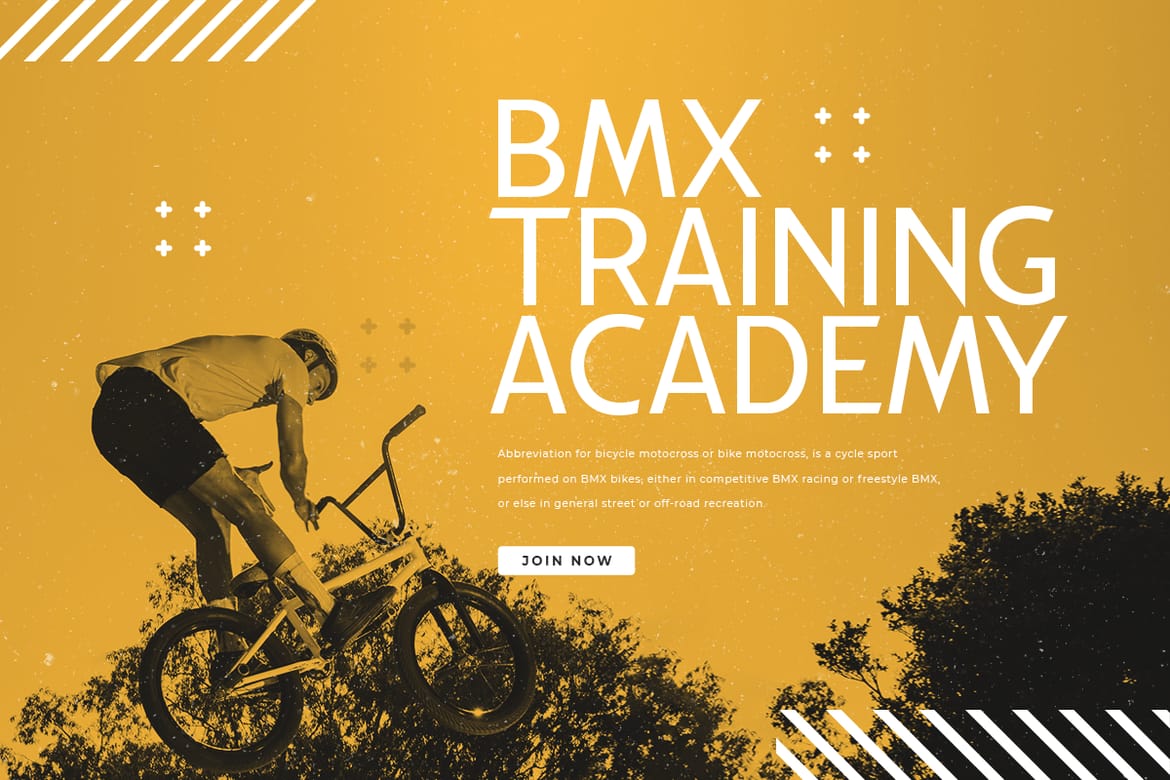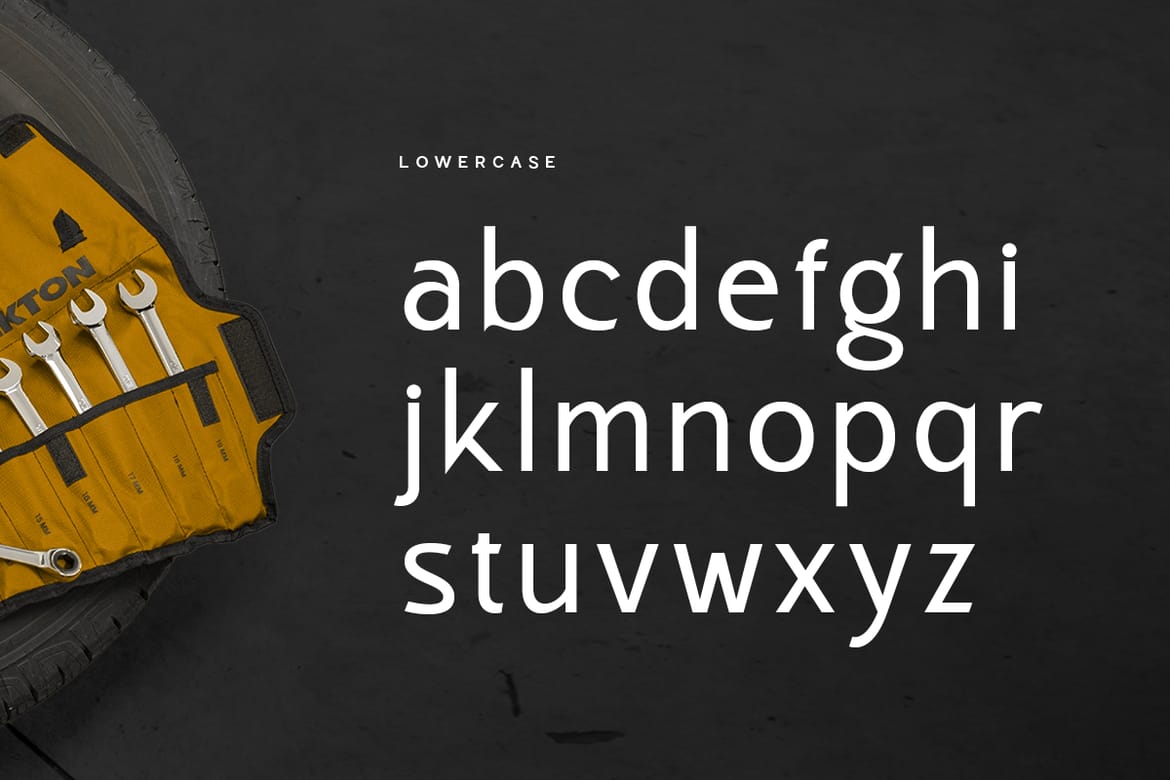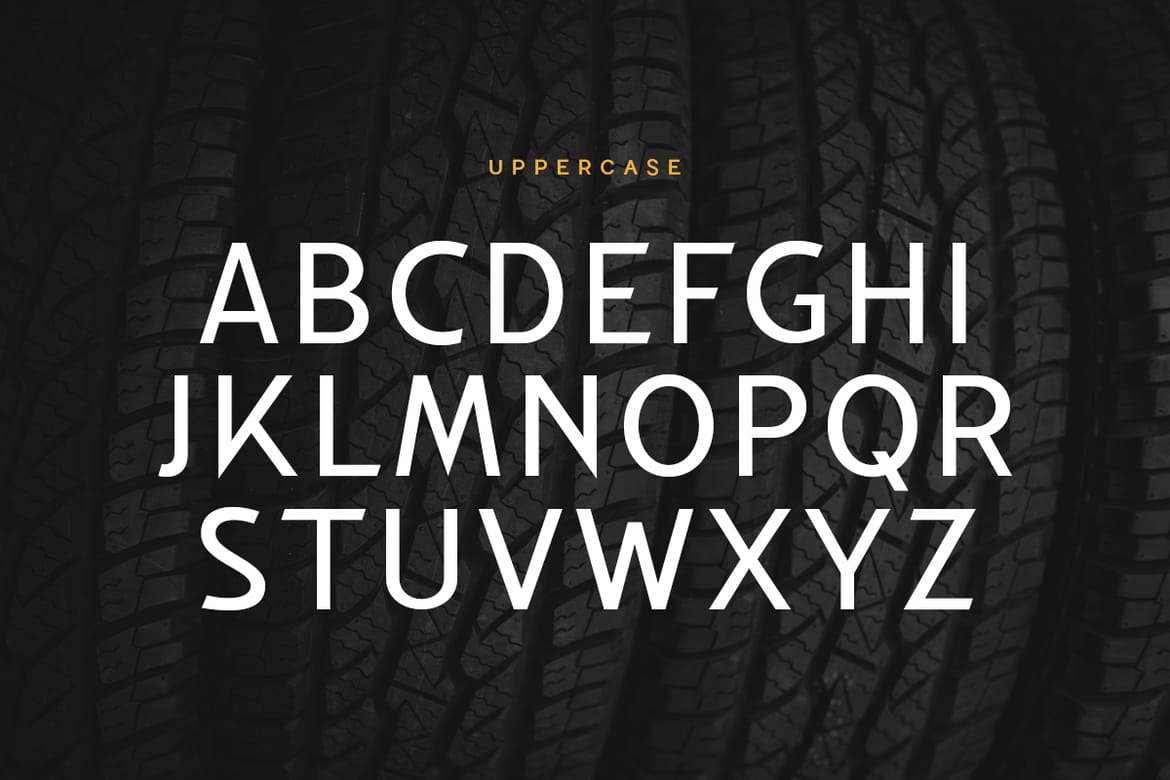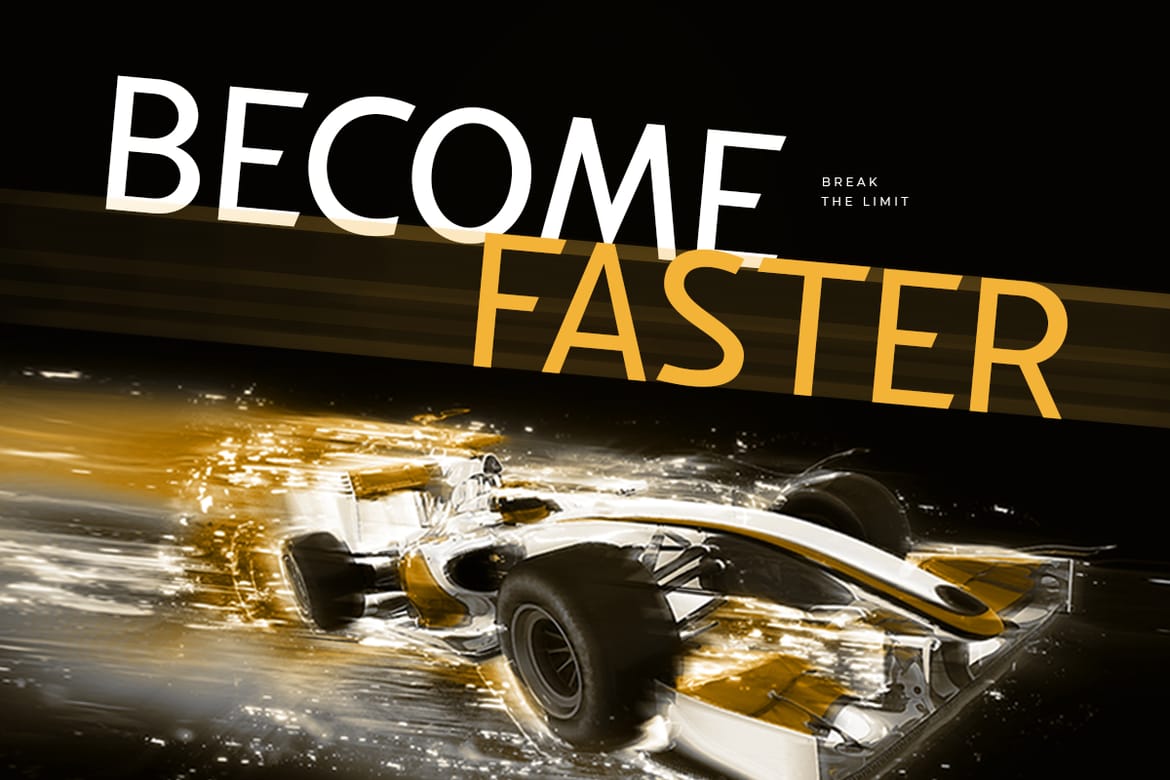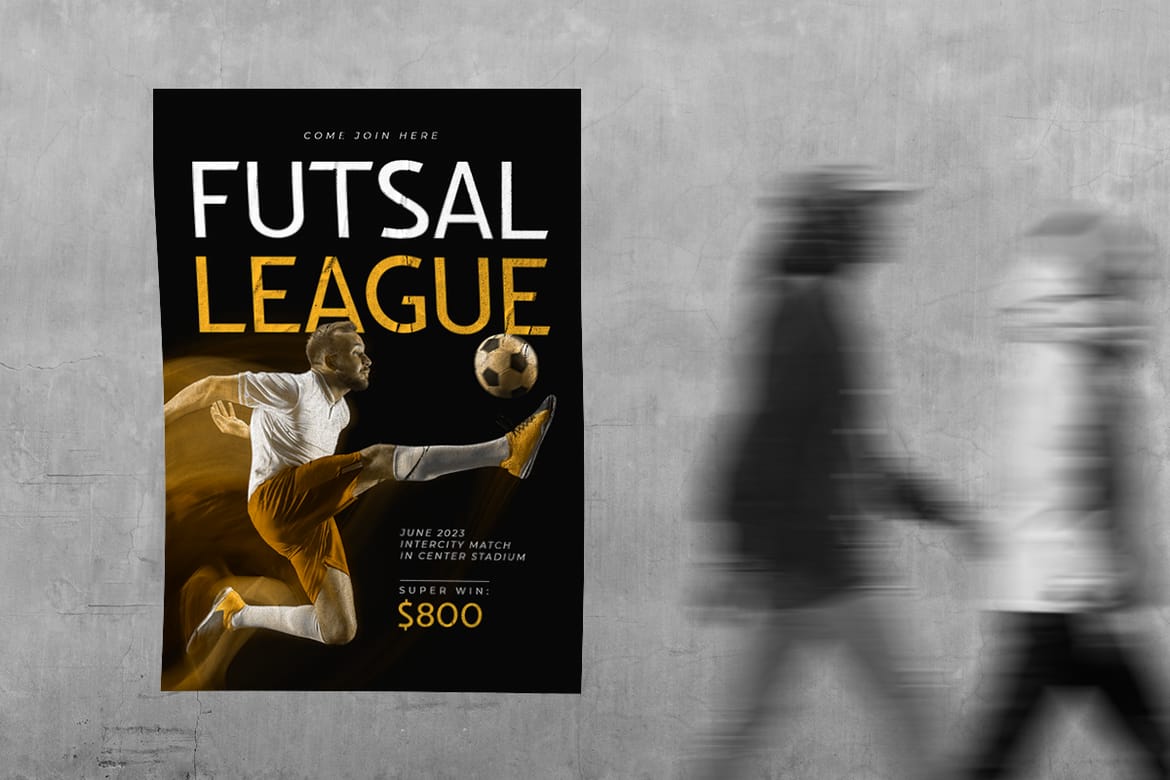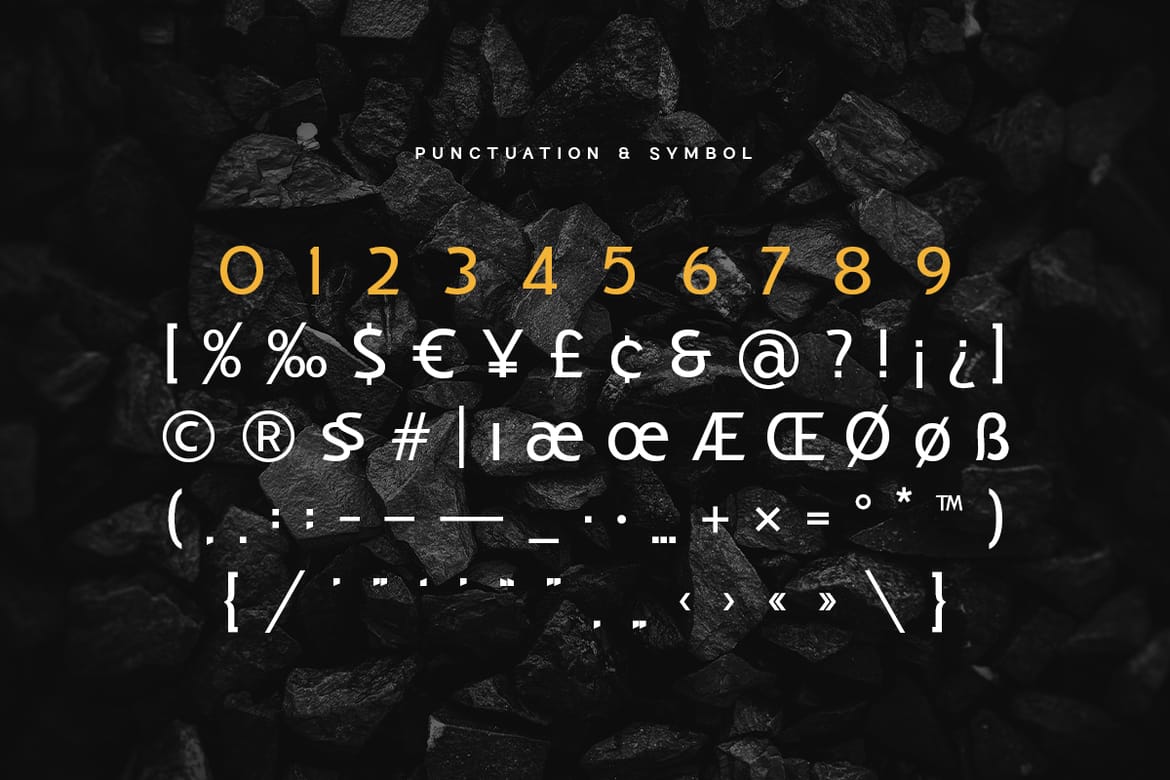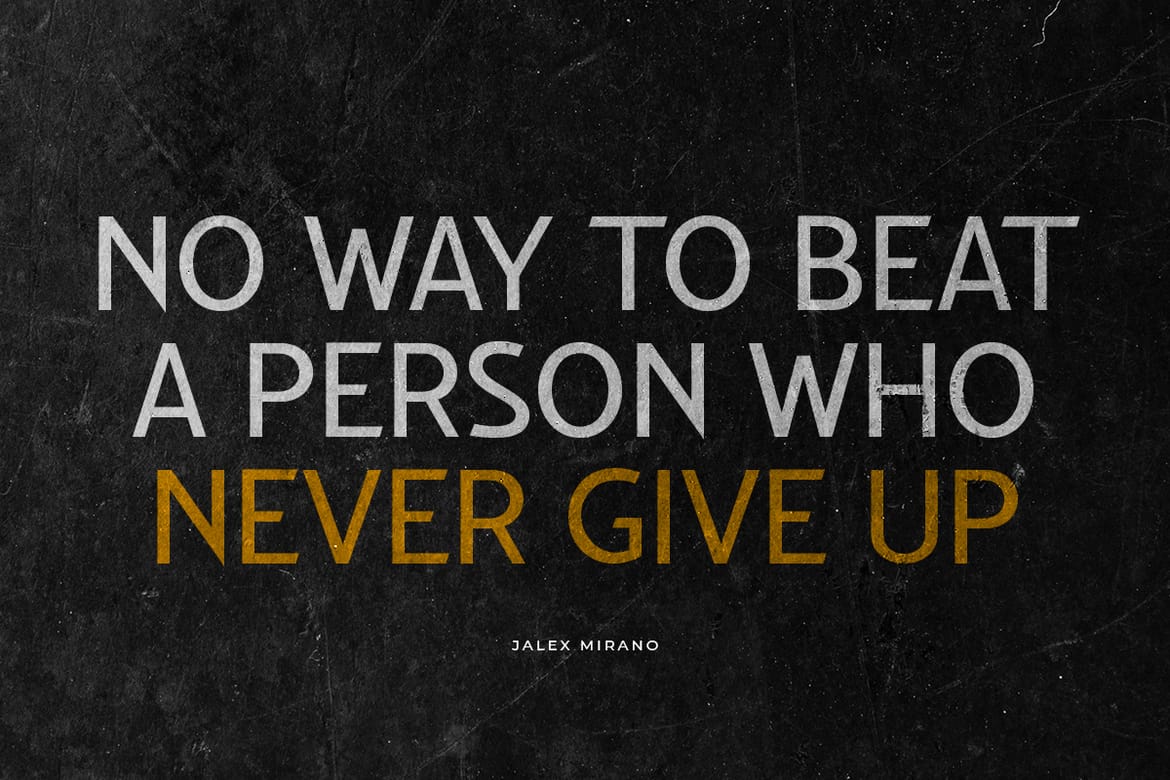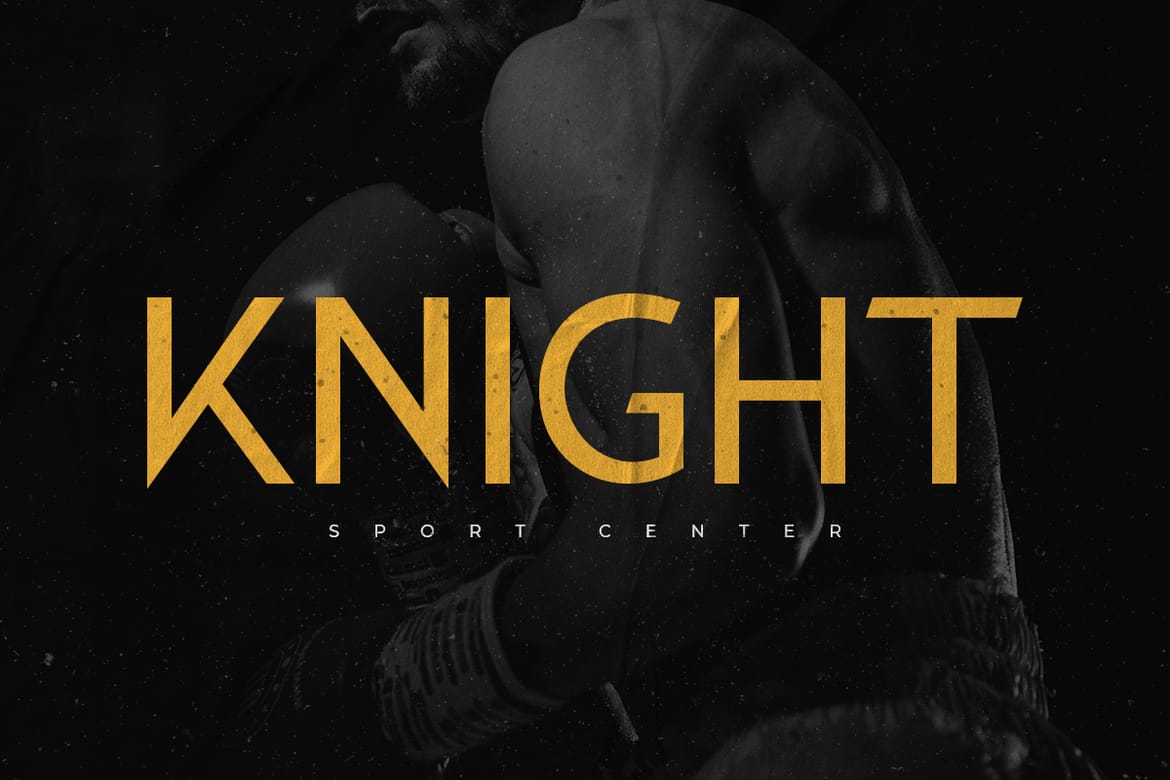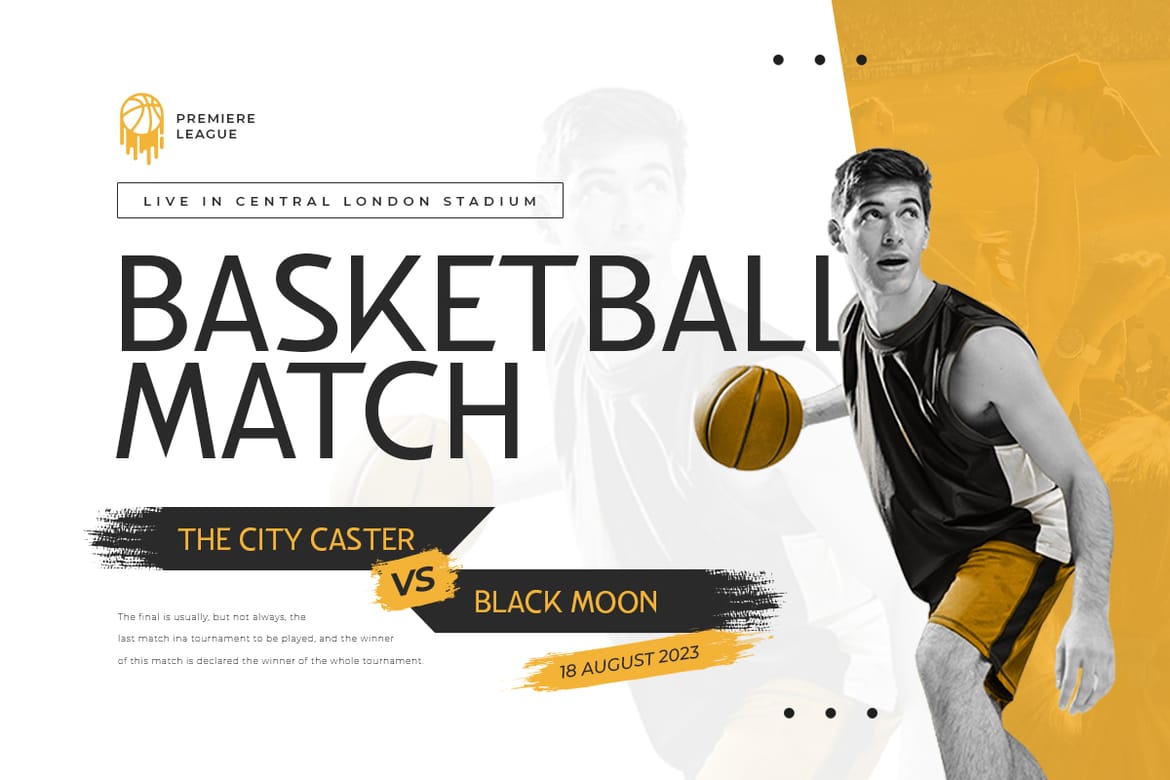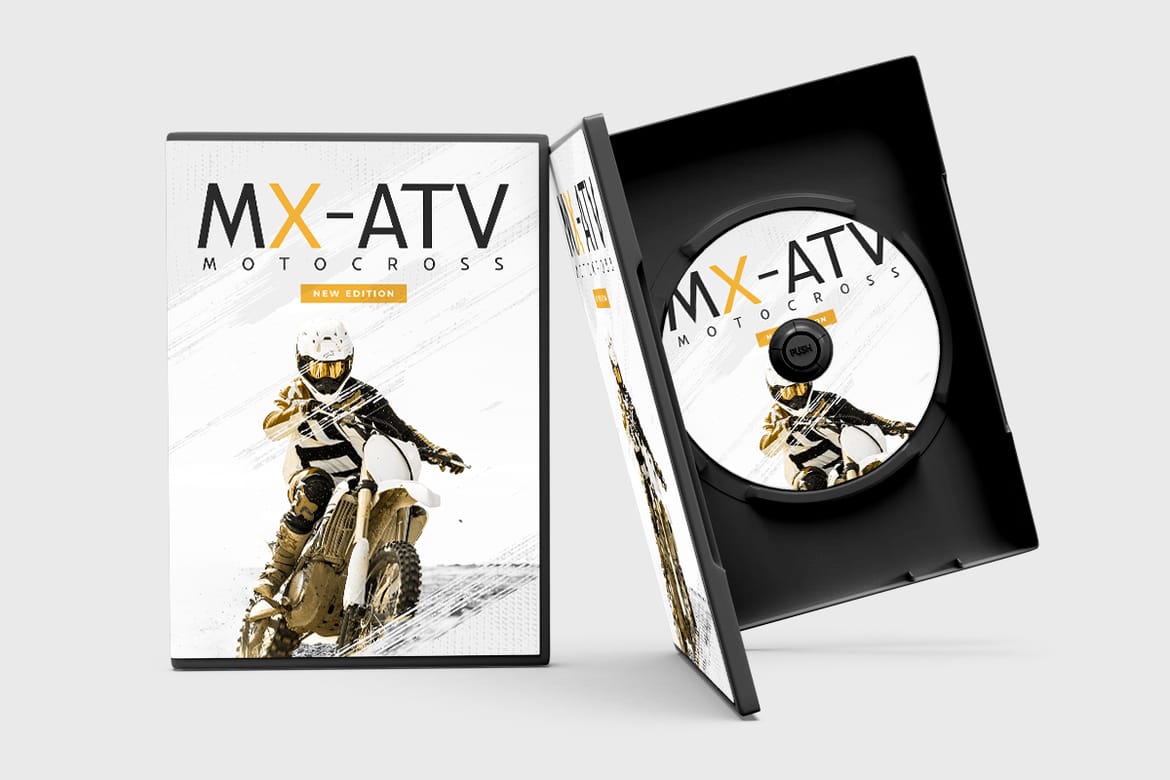
Comfort is a Modern Racing Sport font that created special for Branding, Title and more stand out typography for sport and action. It's so perfect to add your style and headline overview for sport, technology, actions, and fighting theme. And specially for this font, we crafted for bold action style and modern feels so enjoy to create any project that will show your main idea out.
Creative characters prepared to get best results
Ready with All Uppercase characters
- Bold racing sport logo display
- All uppercase action characters